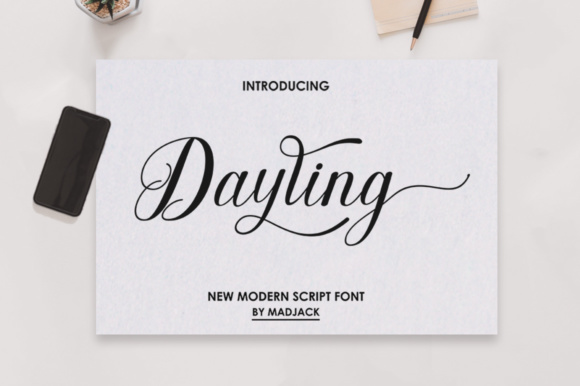
Indulge in the enchanting realm of Dayling Script, a font that captures the essence of elegance and sophistication. Its hand-lettered charm exudes a captivating allure, adding a touch of whimsy to your design projects.
With its casual and dynamic nature, Dayling Script dances across your page, creating a sense of movement and fluidity. The dancing baseline adds a touch of playfulness, inviting you to explore its creative possibilities.
Whether you seek to embellish invitations, create captivating social media posts, or elevate the aesthetic of your website, Dayling Script is your perfect companion. Its flowing lines evoke a sense of grace and refinement, promising to transform your designs into masterpieces.
Embrace the alluring beauty of Dayling Script and unlock a world of design possibilities. Allow its captivating charm to enhance your creations, leaving a lasting impression that will captivate all who behold it.